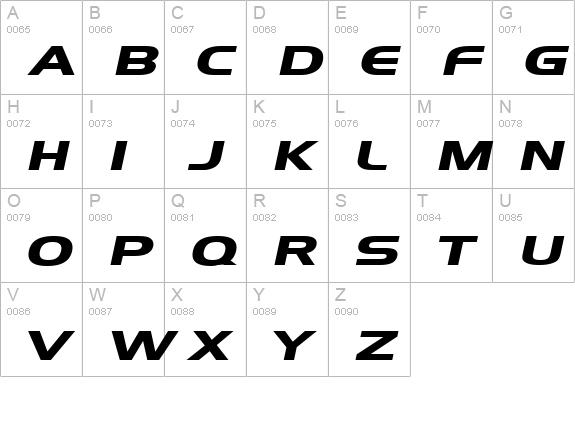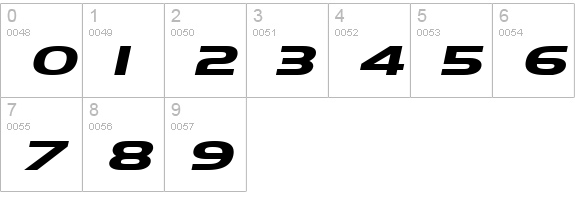
Hanzel Extended Bold Italic Font Details
Hanzel Extended Bold Italic is a strong, high-contrast, extended-width, italic variant in the Hanzel typeface family \xE2\x80\x94 well suited to headlines, attention-grabbing titles, and strong calls-to-action.
Introducing Hanzel Extended Bold Italic, a font that exudes power, elegance, and a touch of sophistication. This versatile typeface is perfect for adding a bold statement to your design projects, whether it's for branding, advertising, editorial layouts, or any other creative endeavor that requires a strong and impactful visual presence. Hanzel Extended Bold Italic features a unique blend of boldness and italic detailing, creating a captivating and dynamic look. Its extended letterforms give it a modern and sleek appearance, making it an ideal choice for contemporary designs that demand attention. This font is not only visually stunning, but it also offers exceptional readability, ensuring that your message is conveyed with utmost clarity. Each letter is meticulously crafted, with carefully designed curves and precise detailing, resulting in a harmonious and visually pleasing composition. What sets Hanzel Extended Bold Italic apart is that it is freely available to download at FontsMarket.com. This means that you can easily access this exceptional font without any cost, making it a valuable asset for both personal and commercial projects. Whether you are a professional designer or a hobbyist looking to elevate your creations, Hanzel Extended Bold Italic is a must-have addition to your font library. With its bold and powerful presence, Hanzel Extended Bold Italic is sure to make a lasting impression. Download it today from FontsMarket.com and unlock the endless possibilities of this remarkable font. Let your creativity flow as you explore the versatility and impact that Hanzel Extended Bold Italic brings to your designs.